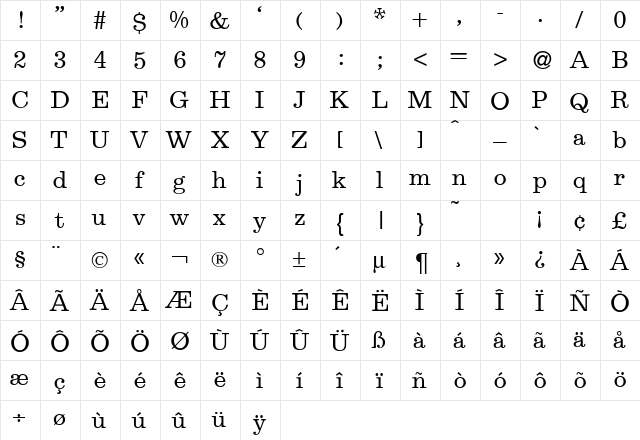
EgipDB Normal Font Preview
EgipDB Normal
Design Context for EgipDB Typeface
EgipDB offers clean, dependable letterforms without strong stylistic allegiance, making it a practical choice for designers who need flexibility.